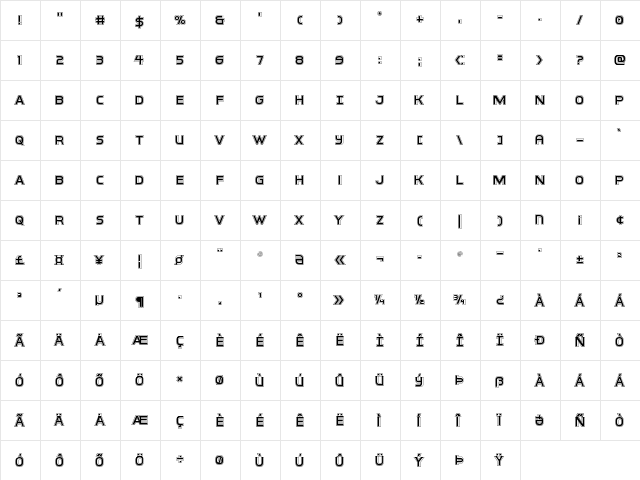
Inter-Bureau Academy Regular
Design Context for Inter-Bureau Academy Typeface
Inter-Bureau Academy is a composed and adaptable typeface that performs quietly and consistently across a wide range of design contexts.